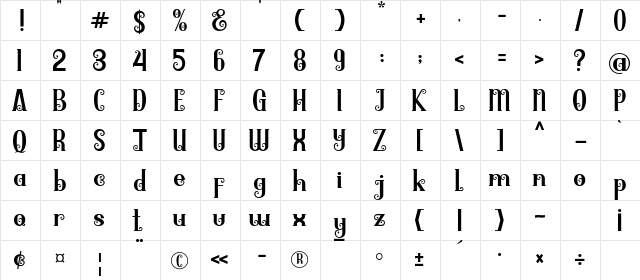
Barringtone Regular
| Designer | Kapri Prianto (NeutroneLabs) |
Design Context for Barringtone Typeface
Barringtone is a composed and adaptable typeface that performs quietly and consistently across a wide range of design contexts.
Pro Tip: Pair Barringtone with a font of contrasting weight or personality to build a more expressive typographic hierarchy.